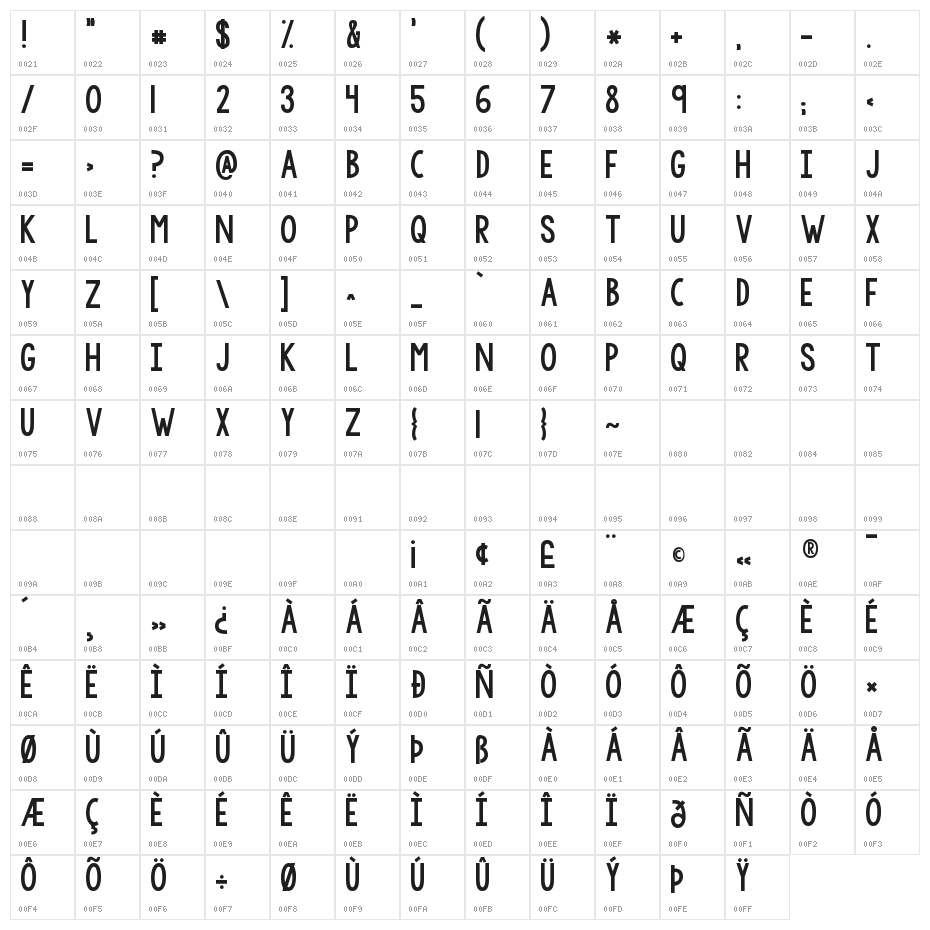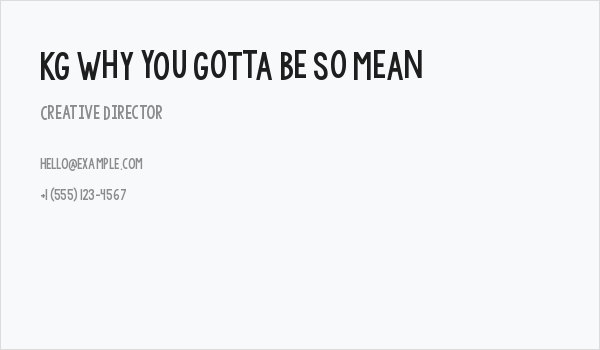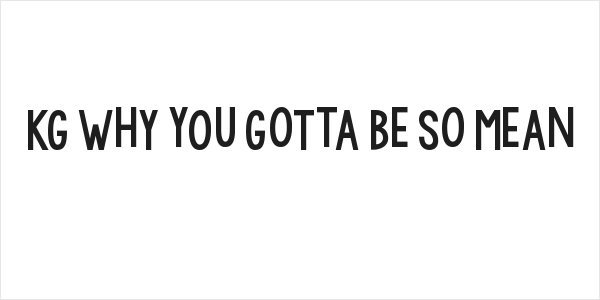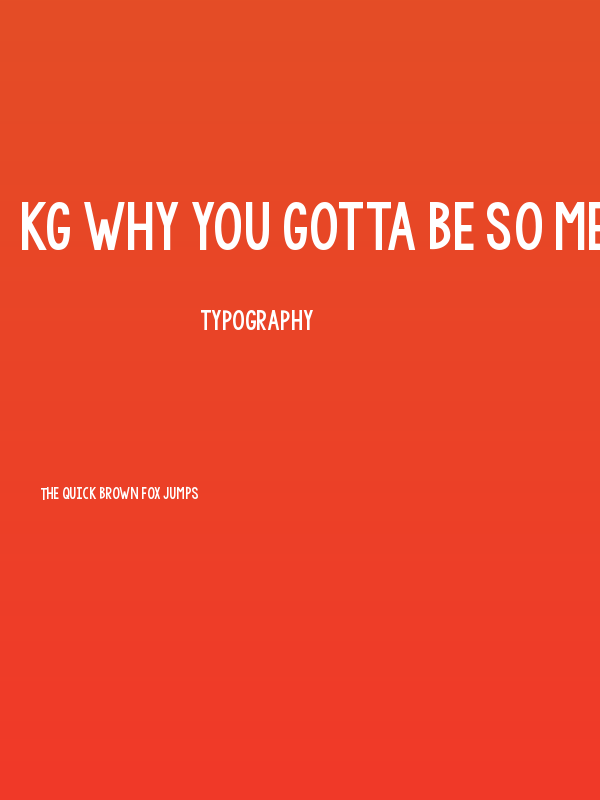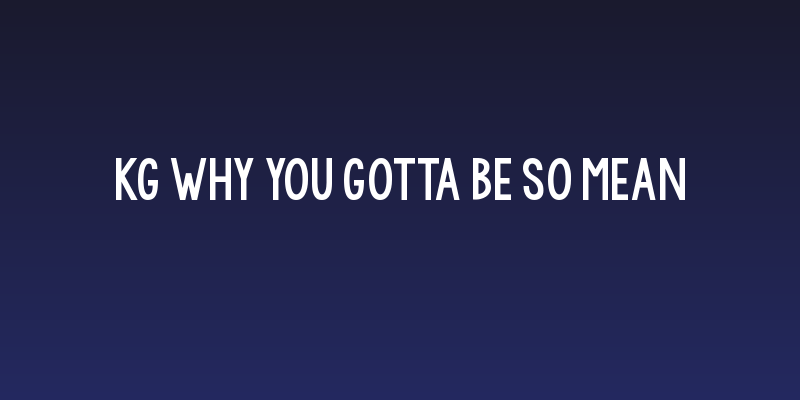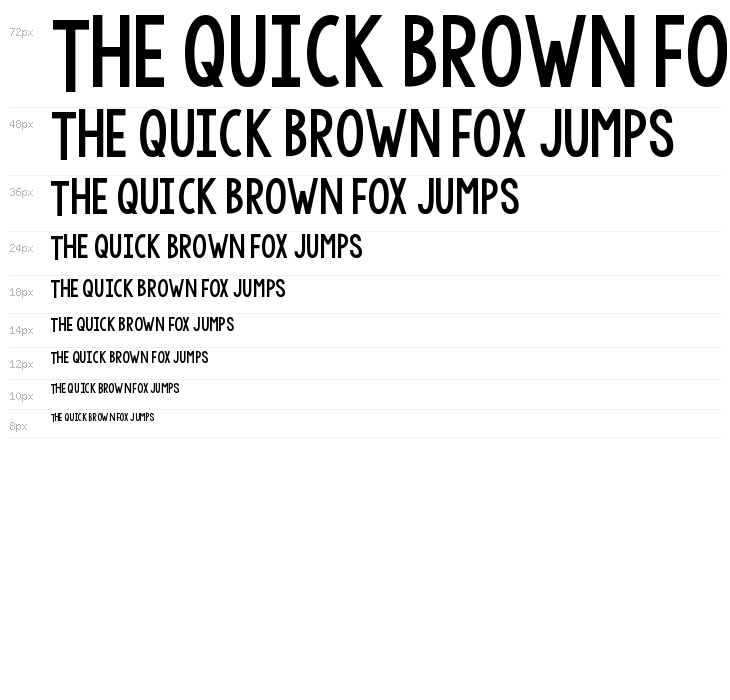
KG WhY yOu GoTtA Be So MeAn Font
KG WhY yOu GoTtA Be So MeAn Description
This font features a bold, sans-serif style with clean, straight lines and uniform stroke widths. The characters are tall and narrow, giving a condensed appearance that maximizes vertical space. The uppercase and lowercase letters maintain a consistent height ratio, while the numerals align seamlessly with the overall design. Special characters are clearly defined, maintaining the same boldness and clarity as the alphabetic characters. The font's simplicity and modern aesthetic make it highly legible and versatile for various design applications.
| Proposed Projects | Ideal for headlines, posters, branding materials, and any design requiring a modern, impactful look. |